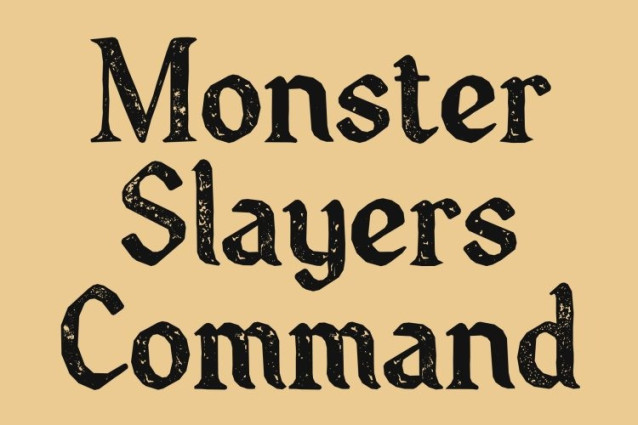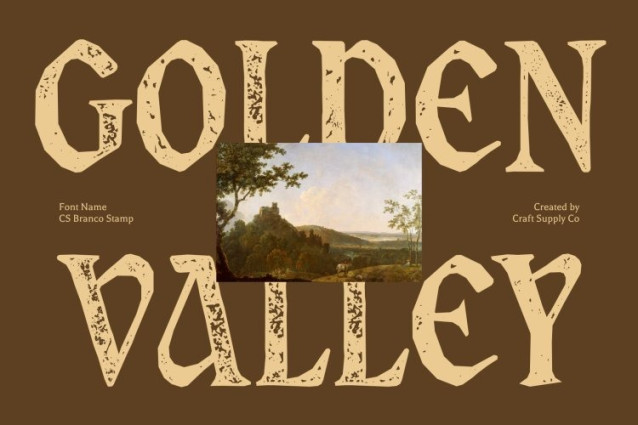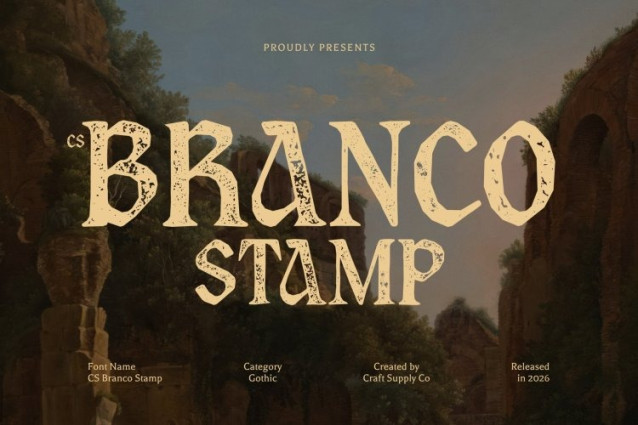
CS Branco Stamp Font
CS Branco Stamp Font This intensifies its dramatic Gothic presence with a subtle stamped texture that adds raw, historical character. The sharp serifs and intricate ornamental lines remain bold and commanding, now enriched with gentle distressing and ink variations that evoke the feel of antique printmaking and aged manuscripts.
Ornamental Detail with Artisanal Texture
The richly crafted serifs and elaborate letterforms gain additional depth through the stamped effect. Slight imperfections enhance the handcrafted essence, reinforcing the medieval inspiration while giving the font a tactile, timeworn authenticity. The result is a captivating blend of architectural precision and organic imperfection.
Perfect for Dramatic Headlines and Thematic Designs
This font excels in headlines, posters, book covers, event materials, and branding that seeks a dark, elegant atmosphere. Its textured Gothic aesthetic makes it ideal for projects inspired by history, fantasy, luxury heritage, or dramatic storytelling.
Classic Grandeur with Raw Character
By combining Gothic sophistication with a distressed stamped finish, delivers timeless elegance layered with expressive depth. It transforms every composition into a powerful visual statement rich in mystery, artistry, and enduring appeal.